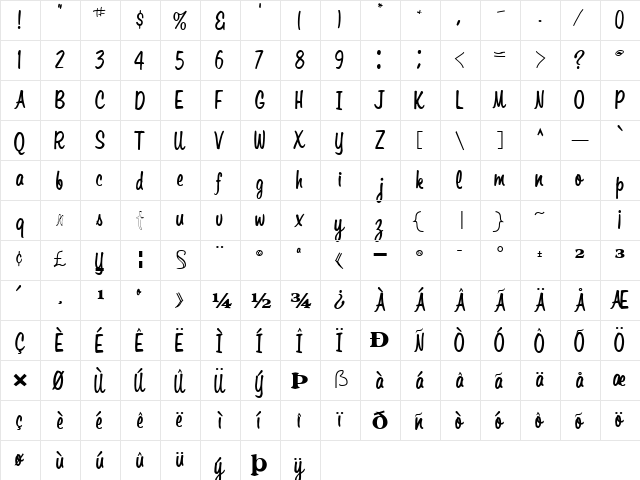
CanDiceFont35 Bold Font Preview
CanDiceFont35 Bold
Design Context for CanDiceFont35 Typeface
CanDiceFont35 is a composed and adaptable typeface that performs quietly and consistently across a wide range of design contexts. The heavy weight commands attention and anchors typographic hierarchies.